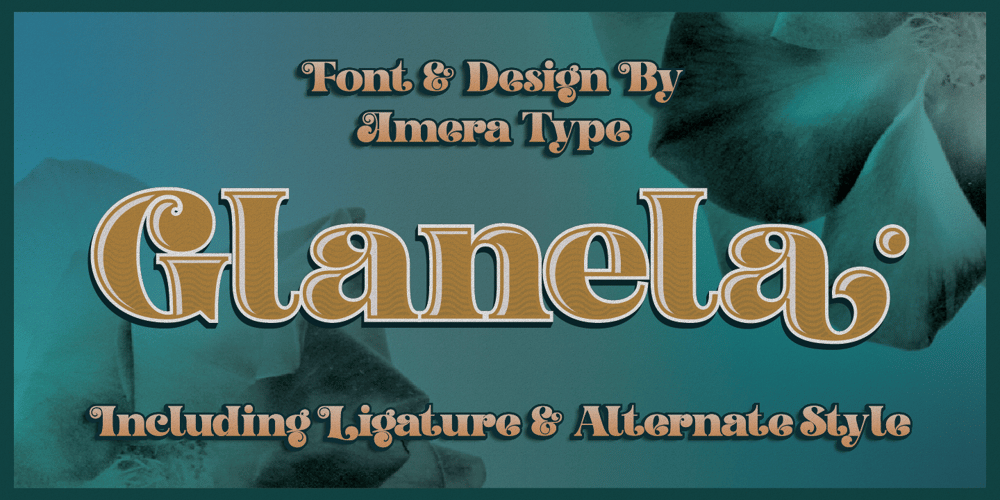
AT Glanela Font Family was designed by Cahyadi Ikhsan and published by Amera Type. AT Glanela contains 1 styles and family package options. The new fonts from Amera Type are designed in the latest styles and with more inspiration from contemporary typographic art. Glanela was created to complement our visual needs in writing titles, music, fashion and product brandingComplete with lowercase and uppercase which have alternate and ligatures to complement every need, support 75+ languages